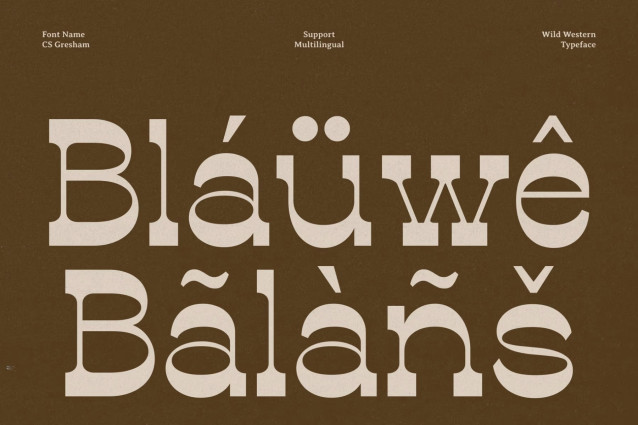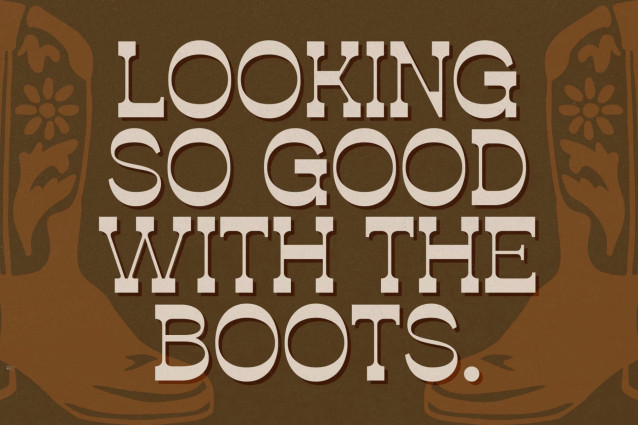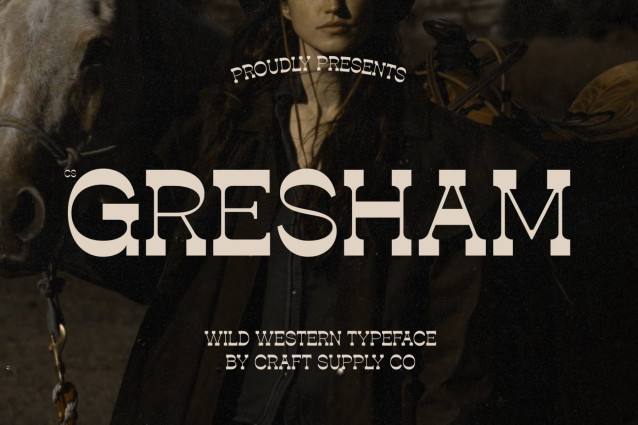
CS Gresham – Western Style Serif Font: Where Frontier Heritage Meets Bold Rustic Charm
Ornamental Curves and Bold Rustic Structure
This is a western-style serif font that combines bold rustic construction with elegant ornamental curves. Inspired by the typography of the American frontier, its expressive letterforms balance decorative details with sturdy proportions, creating a distinctive style that feels authentic, confident, and full of character.
Inspired by Classic Saloon Posters and Rodeo Graphics
Drawing inspiration from old saloon signage, vintage rodeo posters, and traditional Western print culture, that captures the spirit of the frontier with timeless appeal. Its bold serif forms and decorative flourishes evoke a sense of adventure, craftsmanship, and nostalgia while remaining versatile enough for modern creative applications.
Authentic Western Style with Lasting Impact
This font delivers typography that feels rugged yet refined. Its bold structure ensures excellent visibility, while the ornamental curves introduce elegance and personality, making it ideal for display use where authenticity and visual impact are equally important.